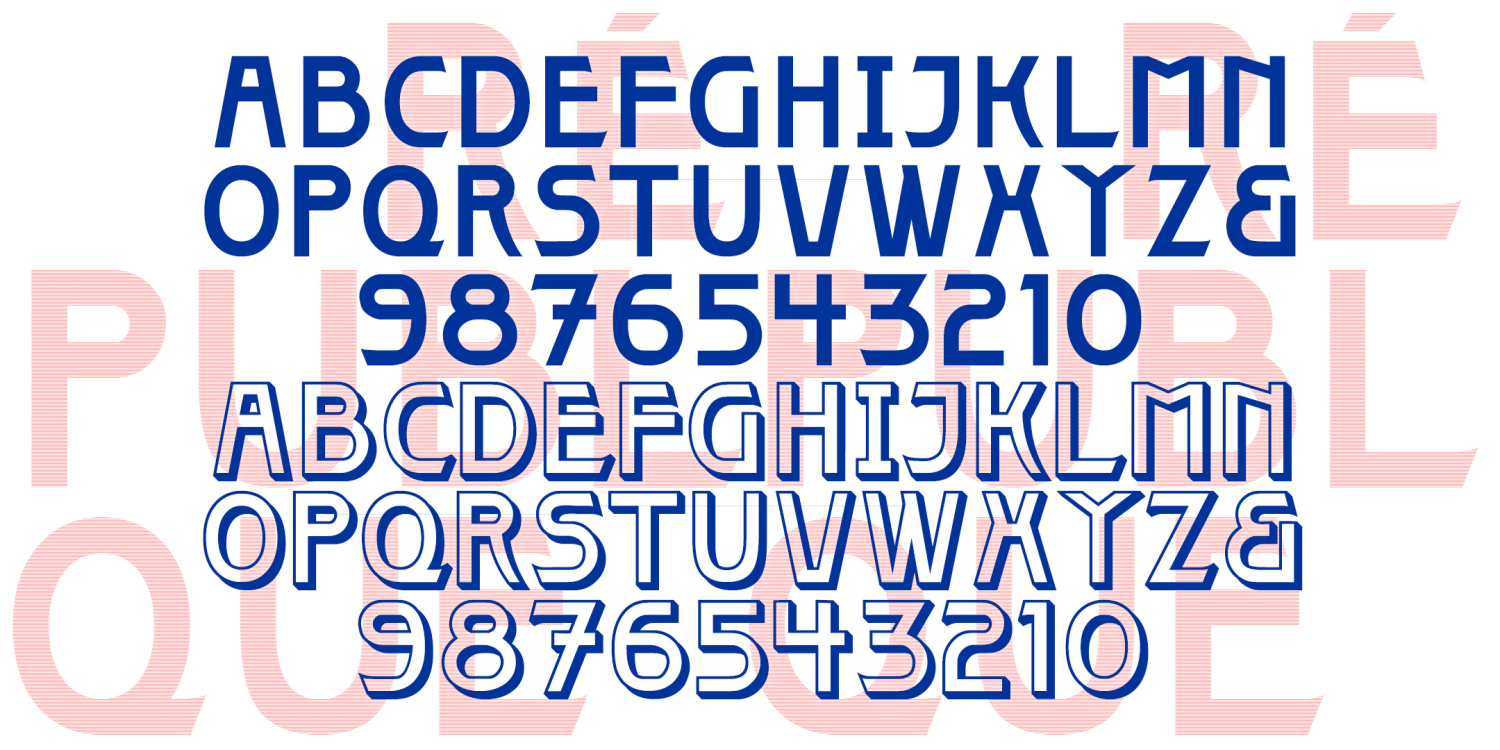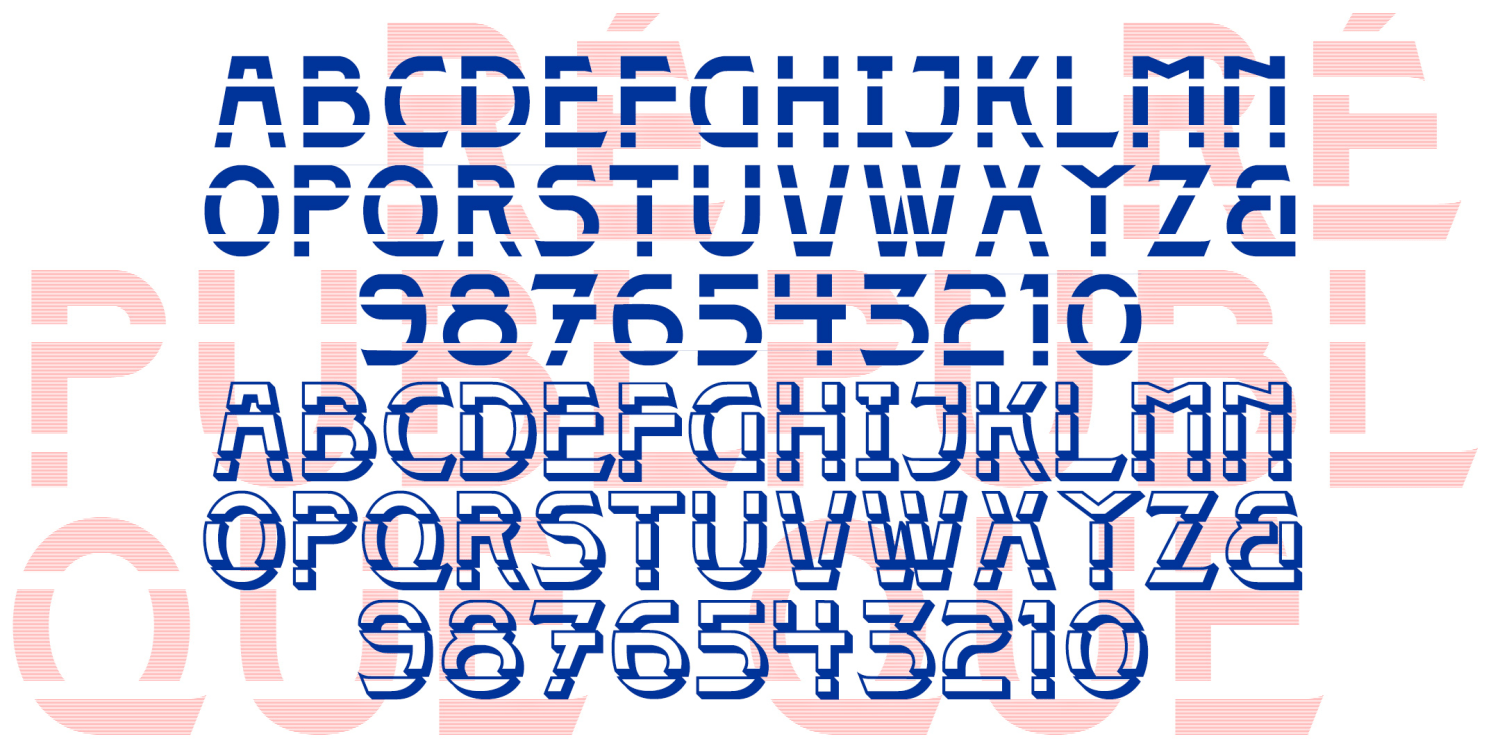
Republique
About Republique
The 4 REPUBLIQUE fonts have a distinctive vintage feel. They were inspired by the lettering on one style of Paris Metro sign, designed by the architect Adolphe Dervaux and first installed in 1924. (This design coexists with the more famous Art Nouveau…